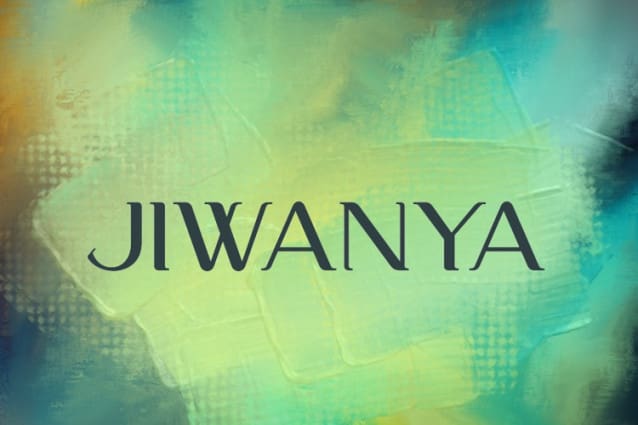
j Jiwanya Font
j Jiwanya Font, This font was created for all forms of business and branding such as clothing, logos, skate boards and others according to your needs.